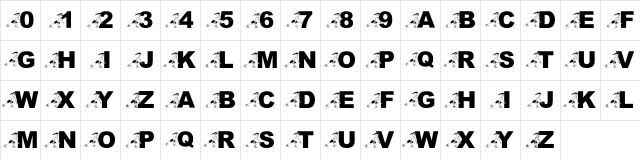
pf_arobic Regular
| Designer | David Howerton |
Design Context for pf_arobic Typeface
pf_arobic is a composed and adaptable typeface that performs quietly and consistently across a wide range of design contexts.